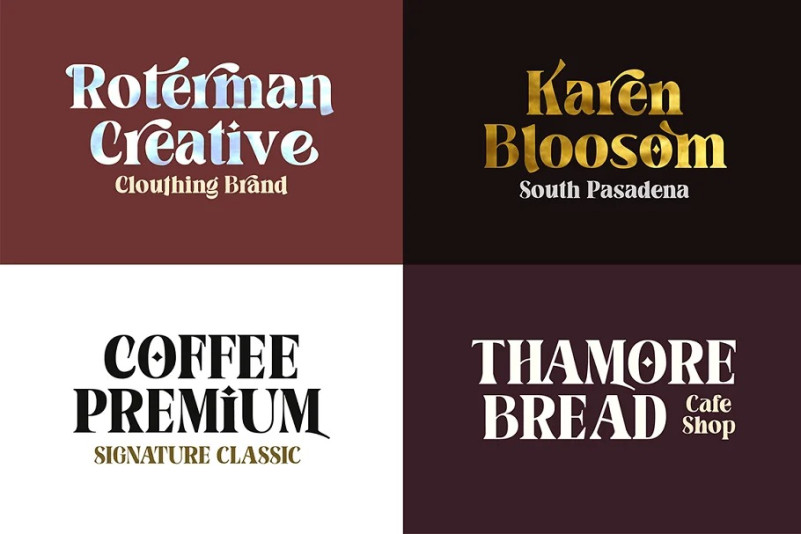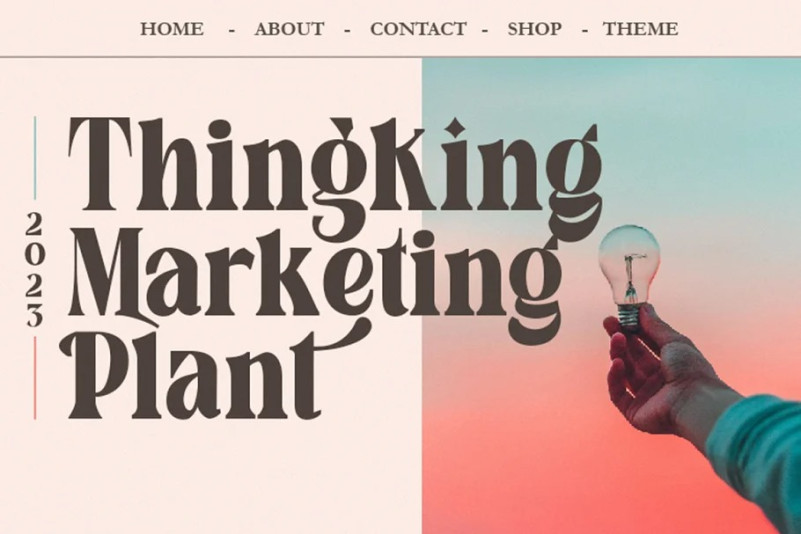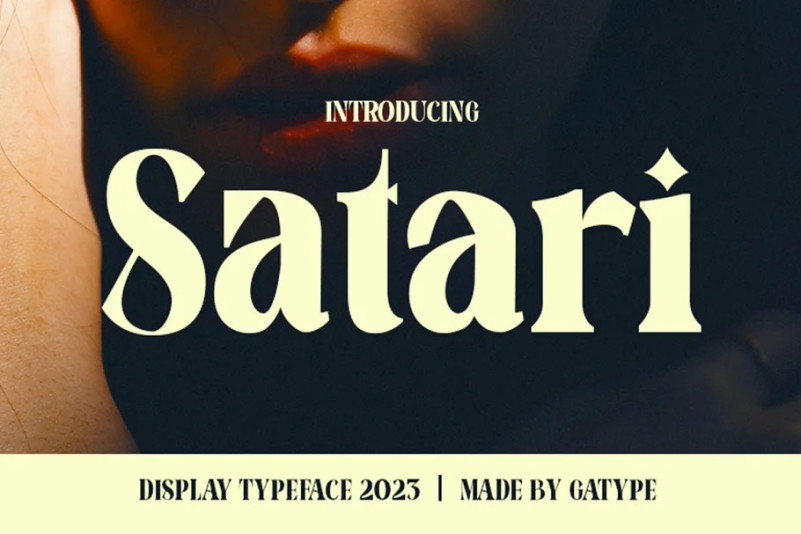
Satari Font
Satari Display Font is a fancy, bold font with multilingual support. This is a very versatile font that works well in both large and small sizes.
Satari Display is perfect for branding projects, logos, wedding designs, social media posts, advertisements, product packaging, product design, labels, photography, watermarks, invitations or any project you’re working on.